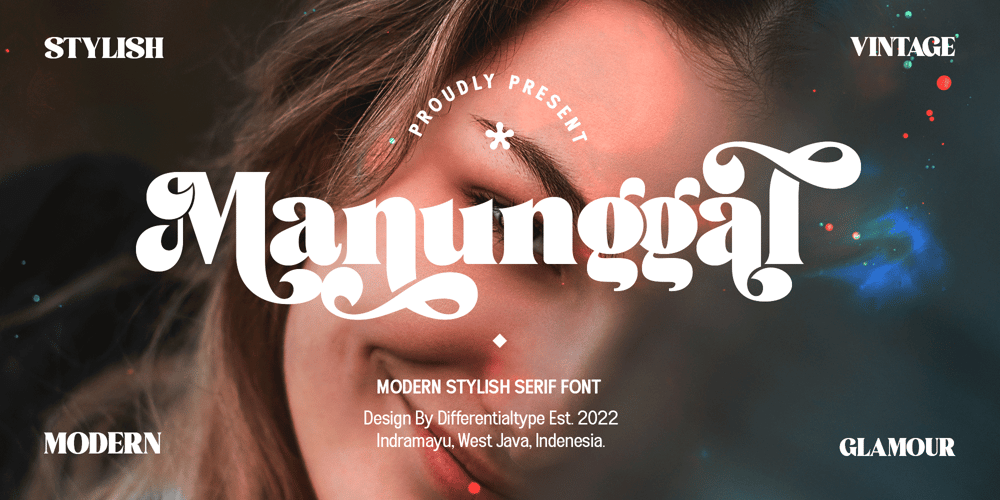
Manunggal
Manunggal font
Manunggal Font Family was designed by Sidik Sidik and published by Differentialtype. Manunggal contains 2 styles and family package options. Manunggal is a cool, stylish, modern and fun serif display font. This font is great for headlines, magazines, logos, branding and more!This font is PUA encoded which means you can access all of the glyphs and alternates with ease!